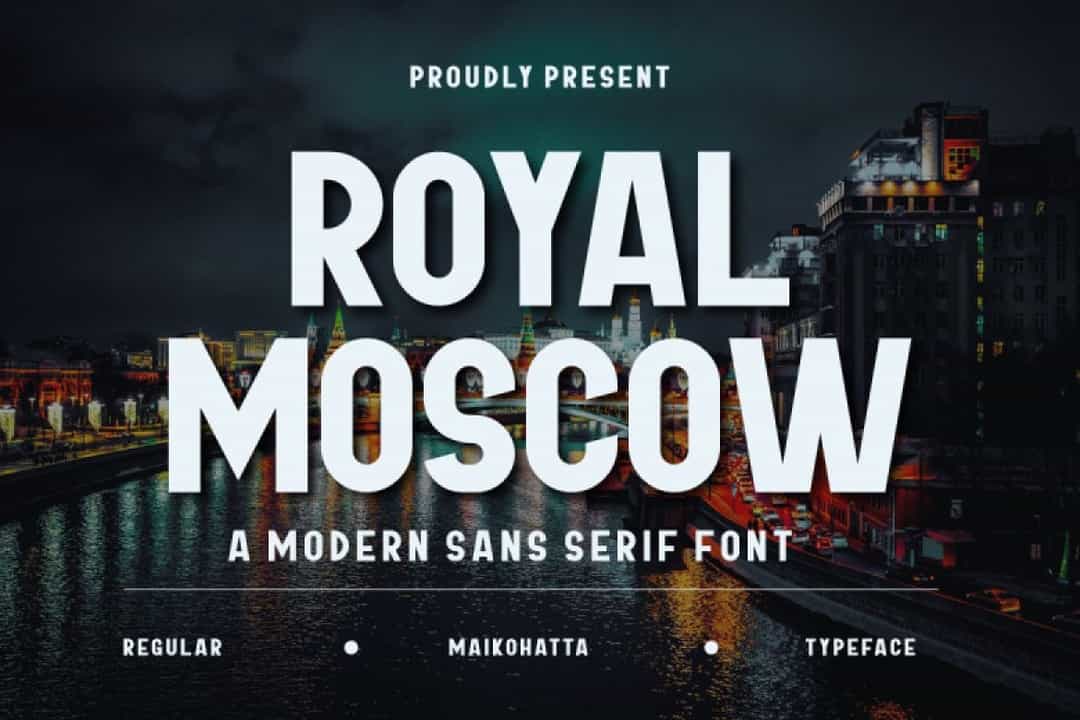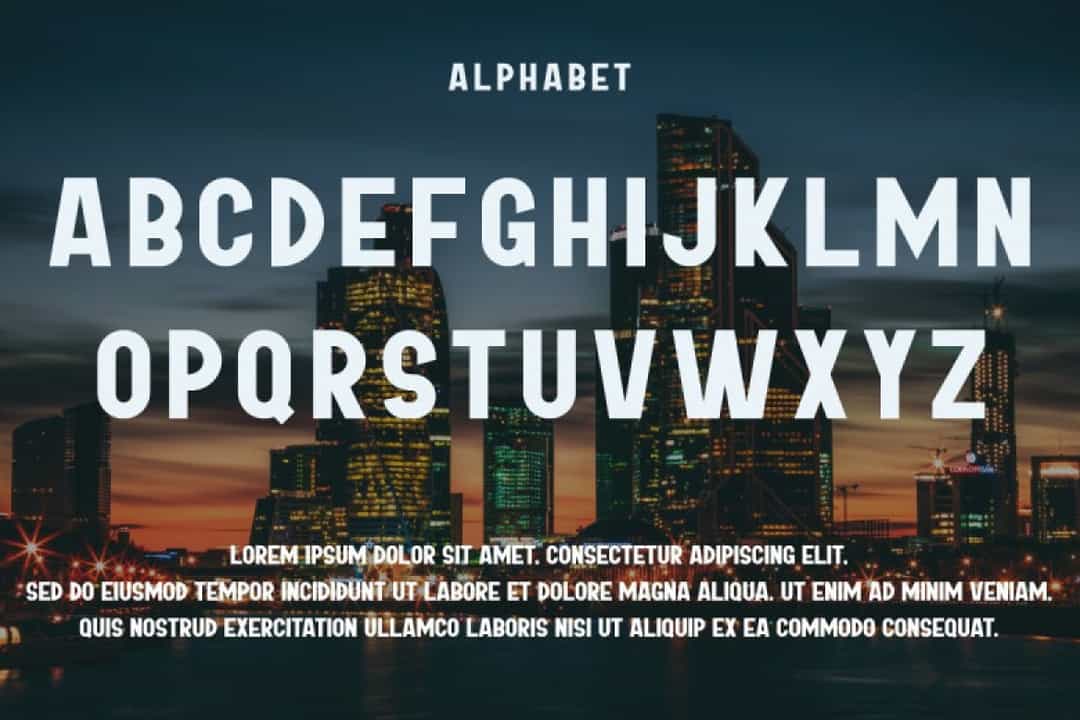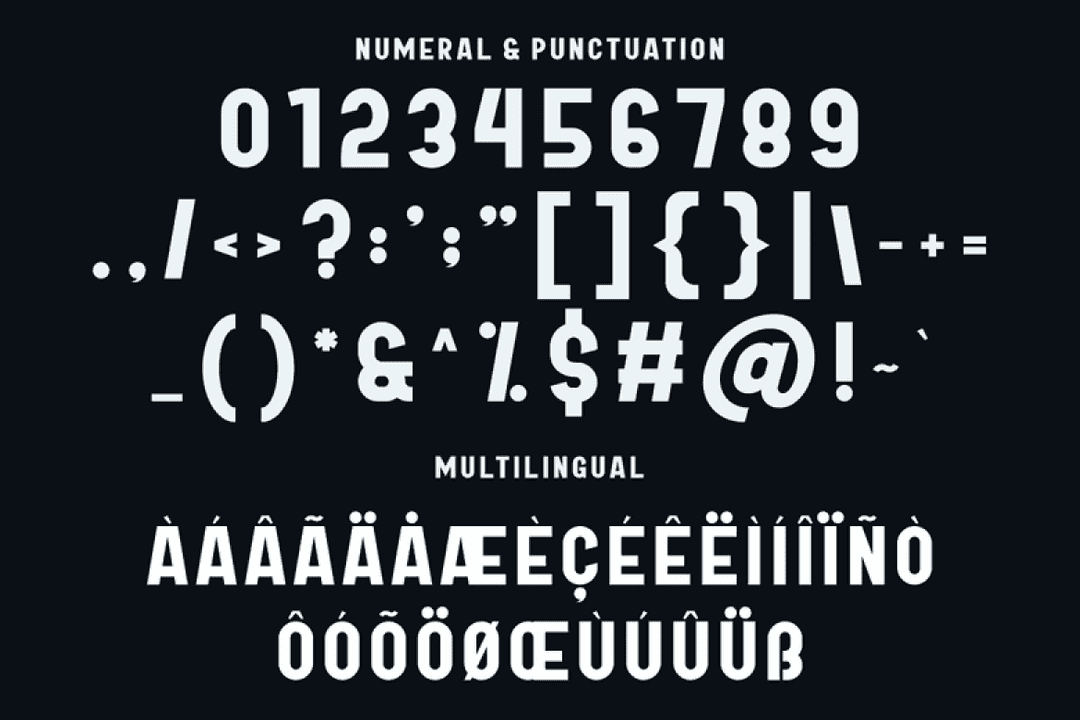
ROYAL MOSCOW is an elegant yet bold genuine sans serif font designed specifically to be used for branding projects such as logos and templates in esports or other professional contexts. This font truly excels under any circumstance.